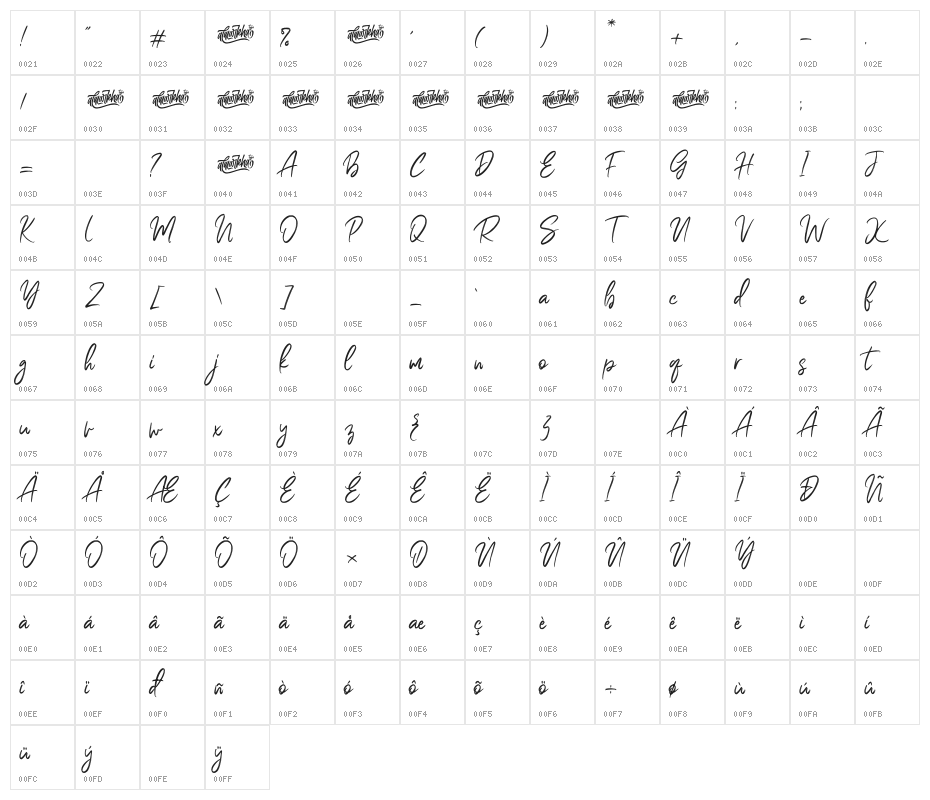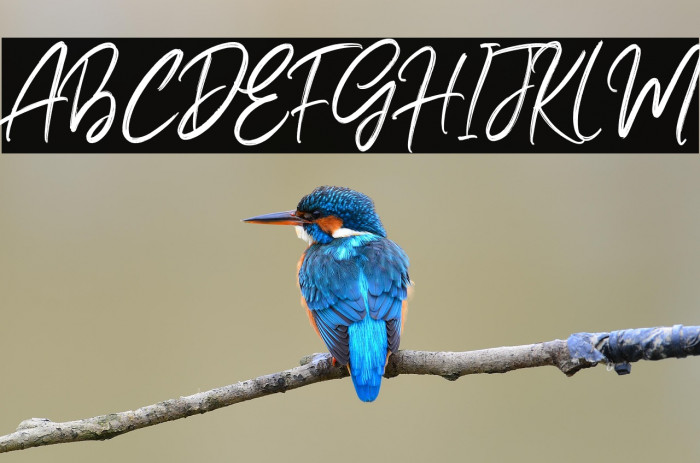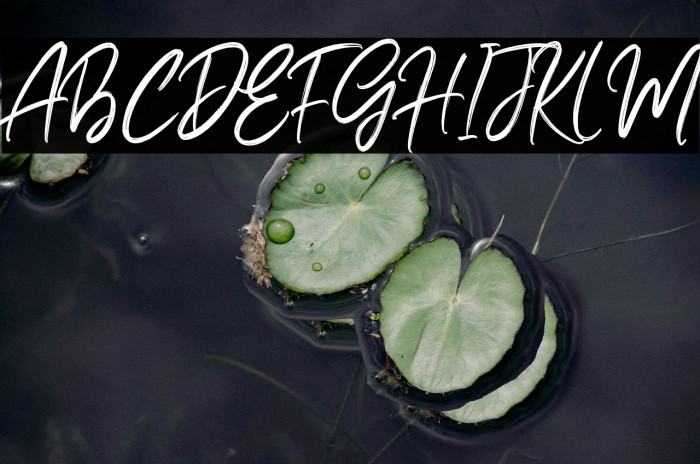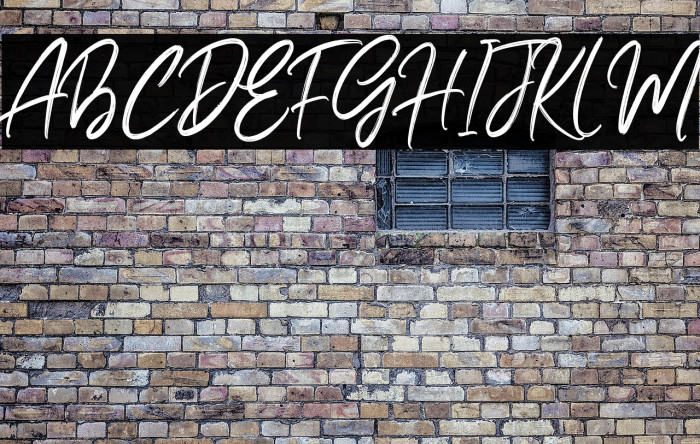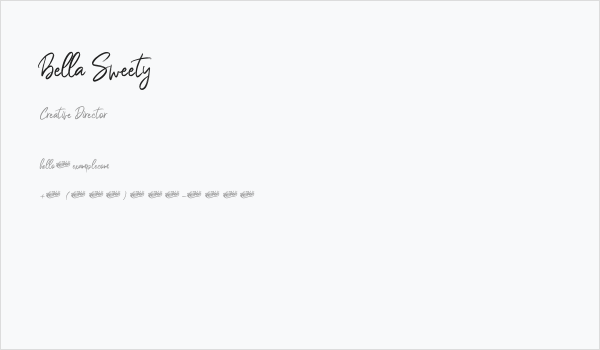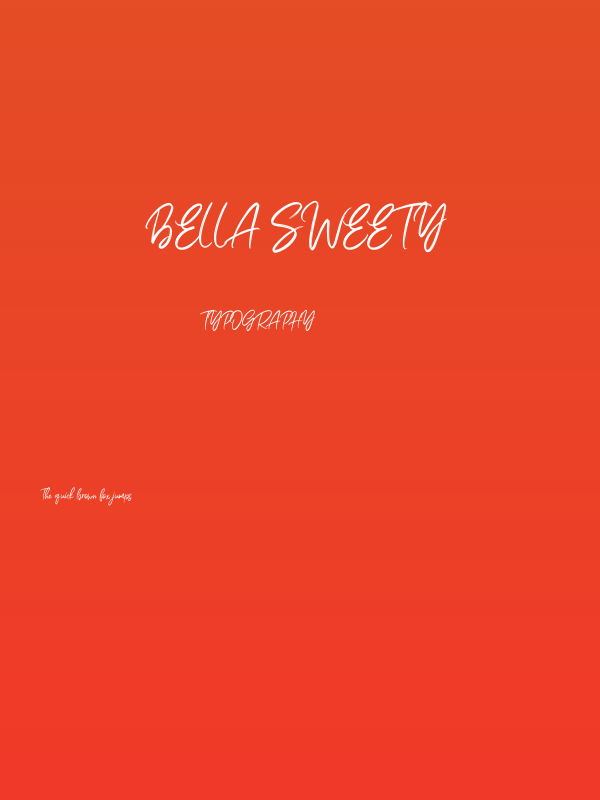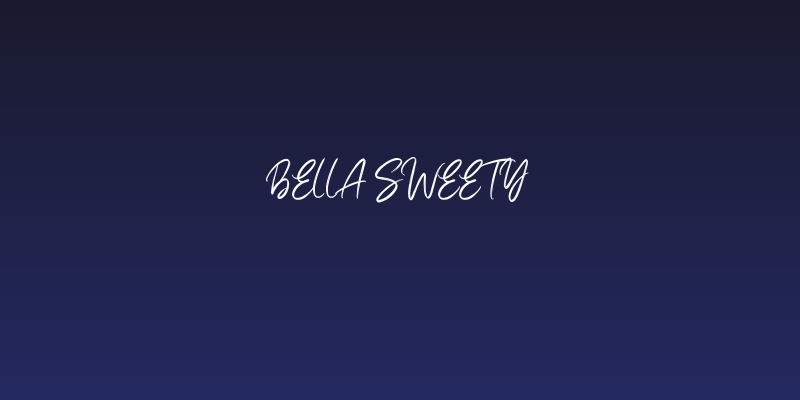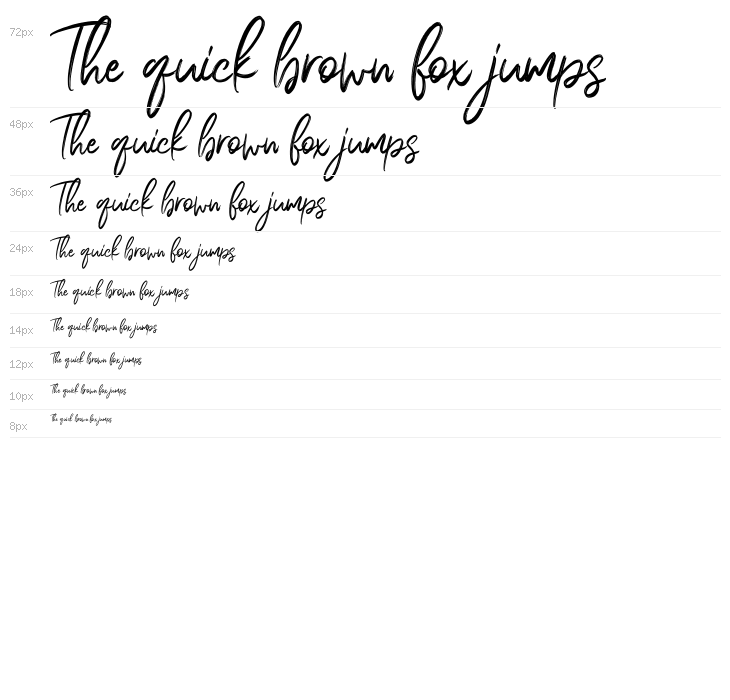
Bella Sweety Font
| Caso d'uso | Logos, Invitations, Greeting Cards |
| Progetti proposti | Ideal for wedding invitations, greeting cards, logos, and branding projects that require a personal and artistic touch. |